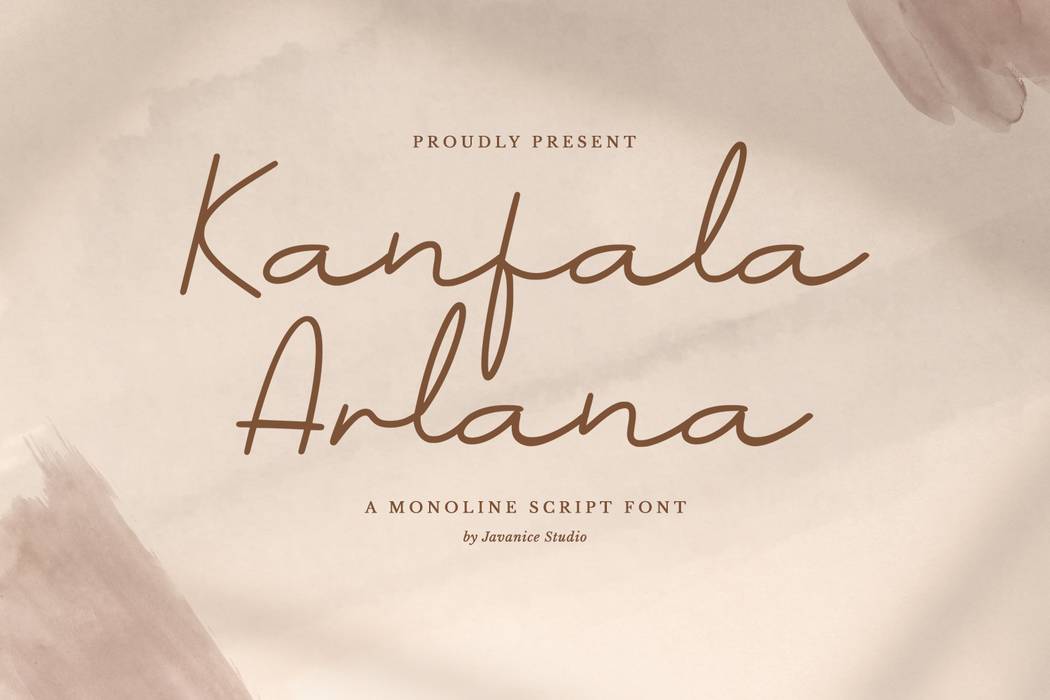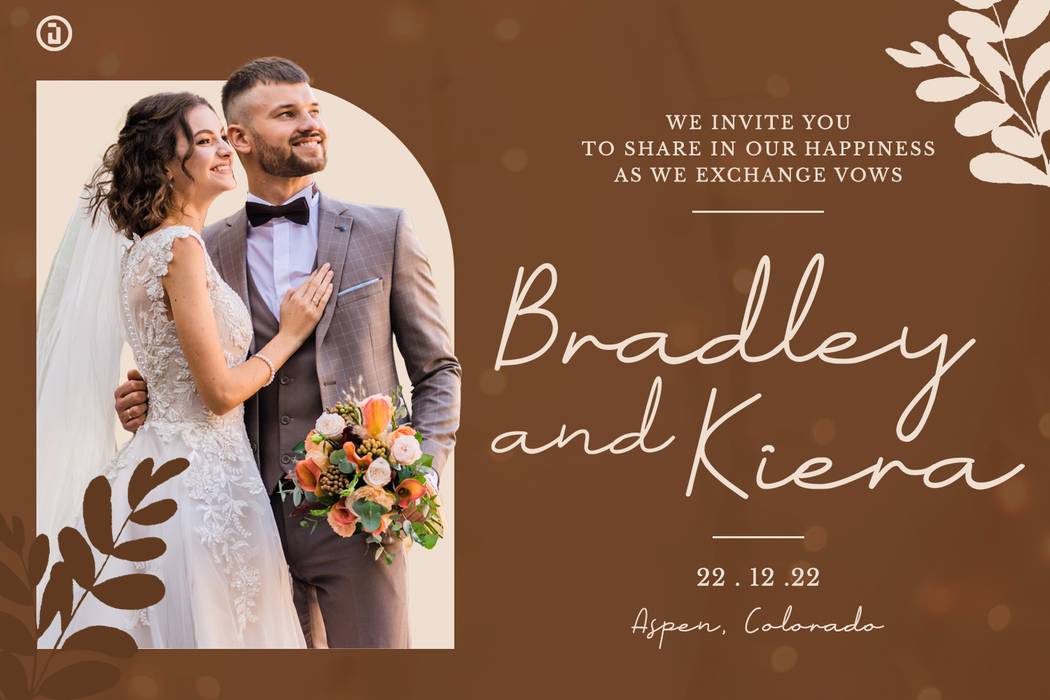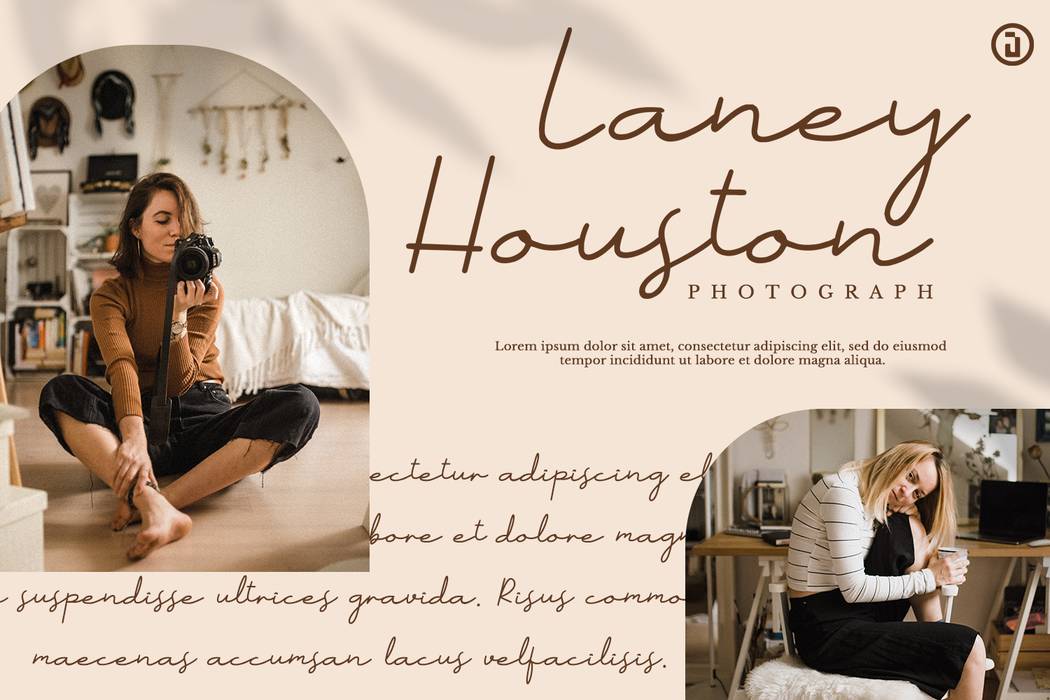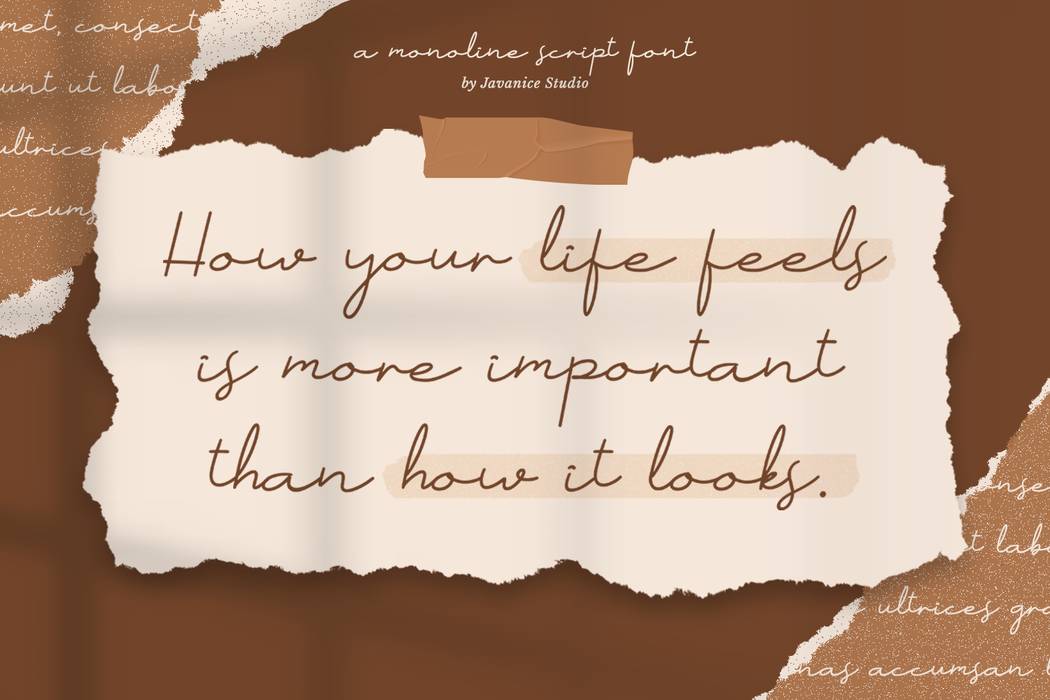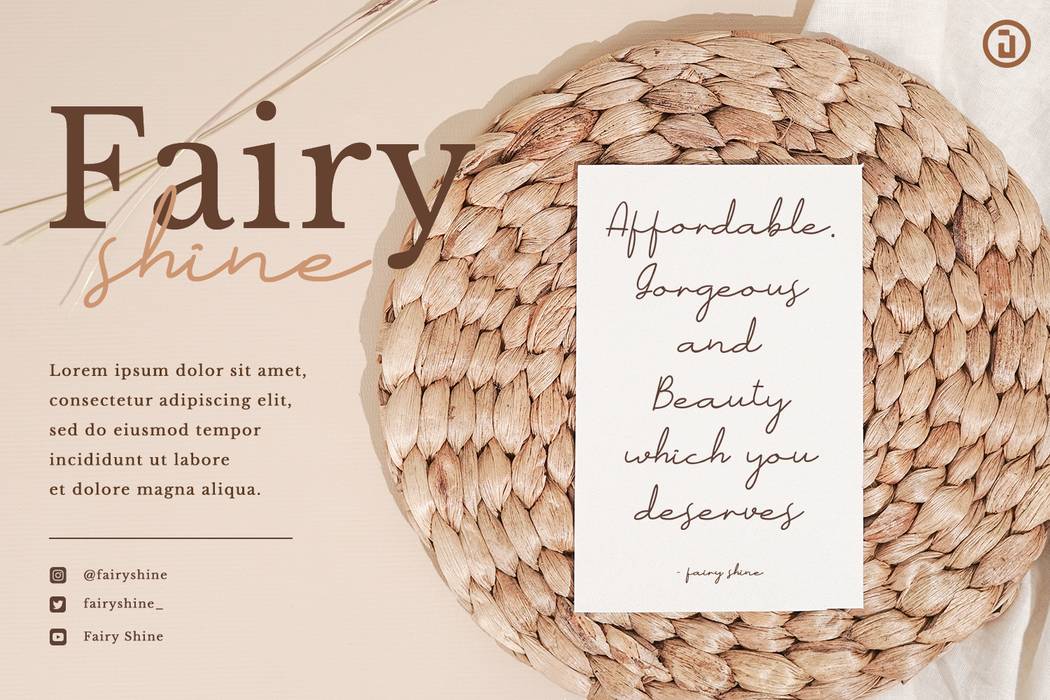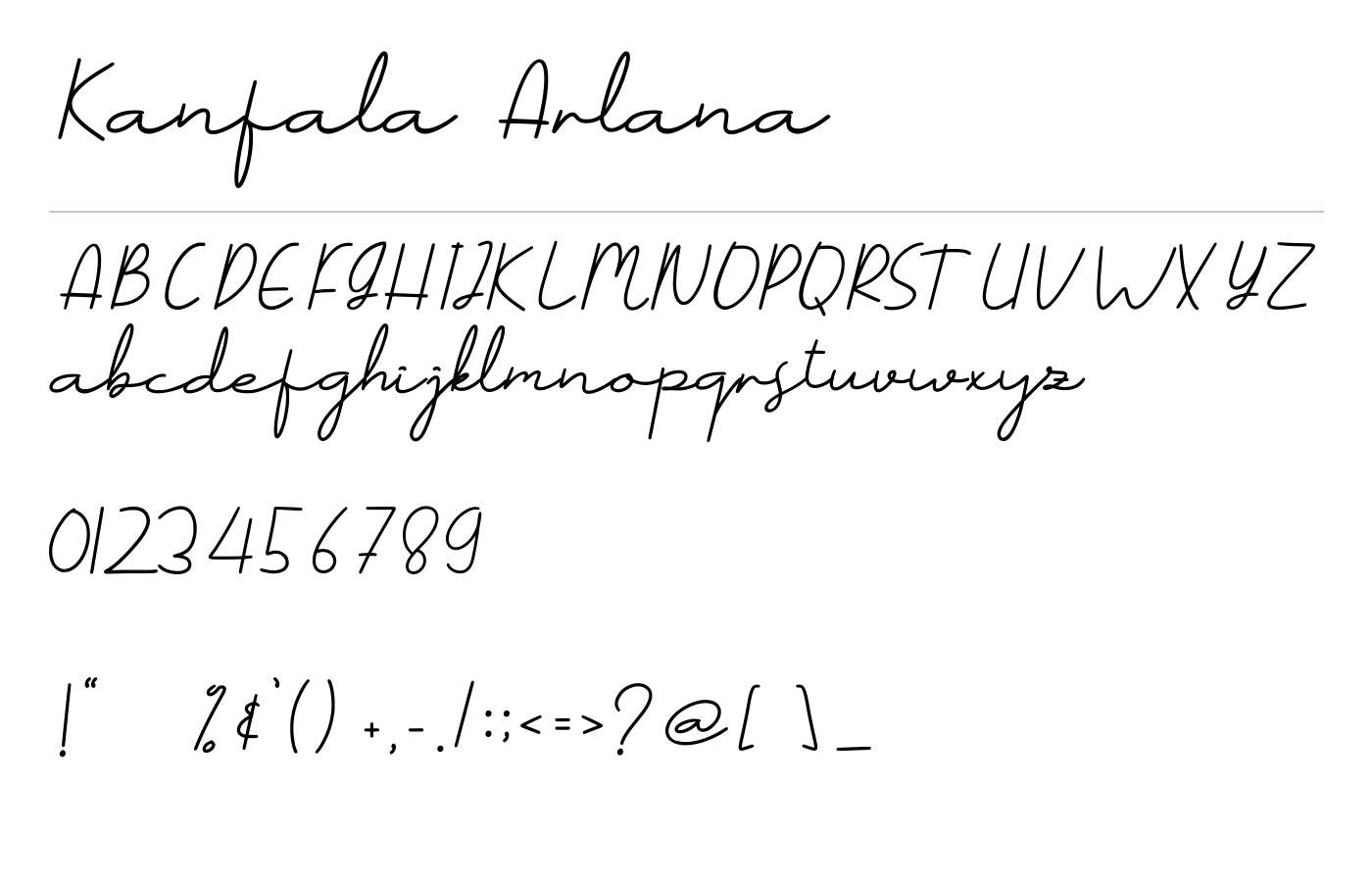
Kanfala Arlana is a delicate, handwritten script font with a light weight and airy feel, characterized by its slender, flowing letterforms and subtle, natural curves. Its tall x-height and single-story lowercase letters create a modern yet personal touch, perfect for adding elegance and approachability to invitations, branding, or creative projects. This font works well in contexts that require a blend of sophistication and warmth, making it ideal for lifestyle, fashion, and artistic uses.
Kanfala Arlana Font
About Kanfala Arlana Font
| Font family | Kanfala Arlana Font |
| Designer | JAVANICE STUDIO |